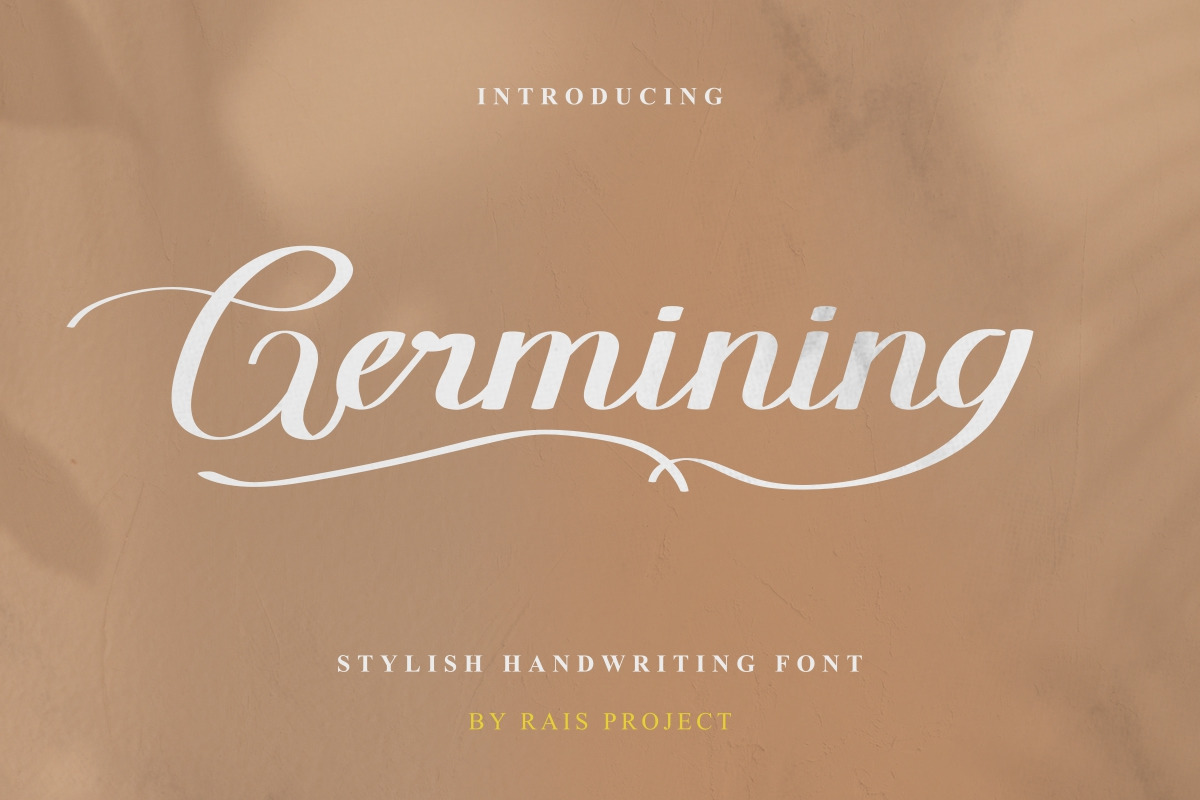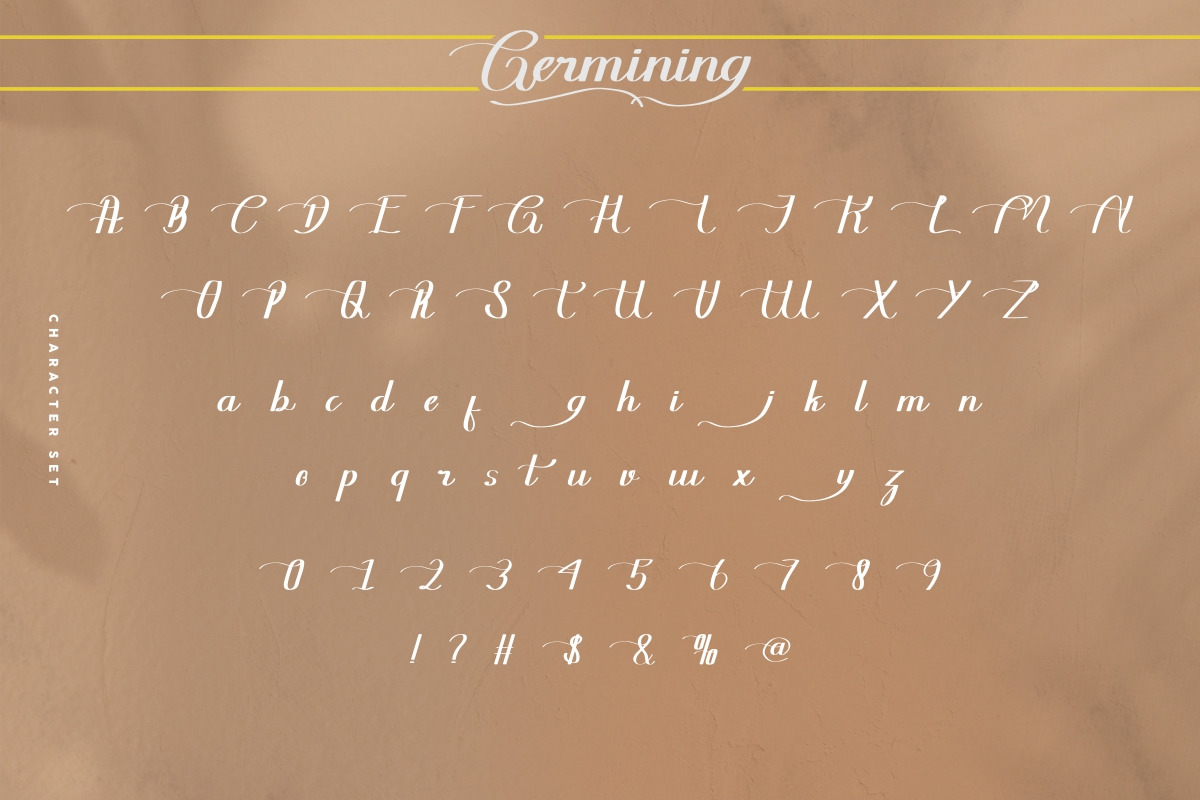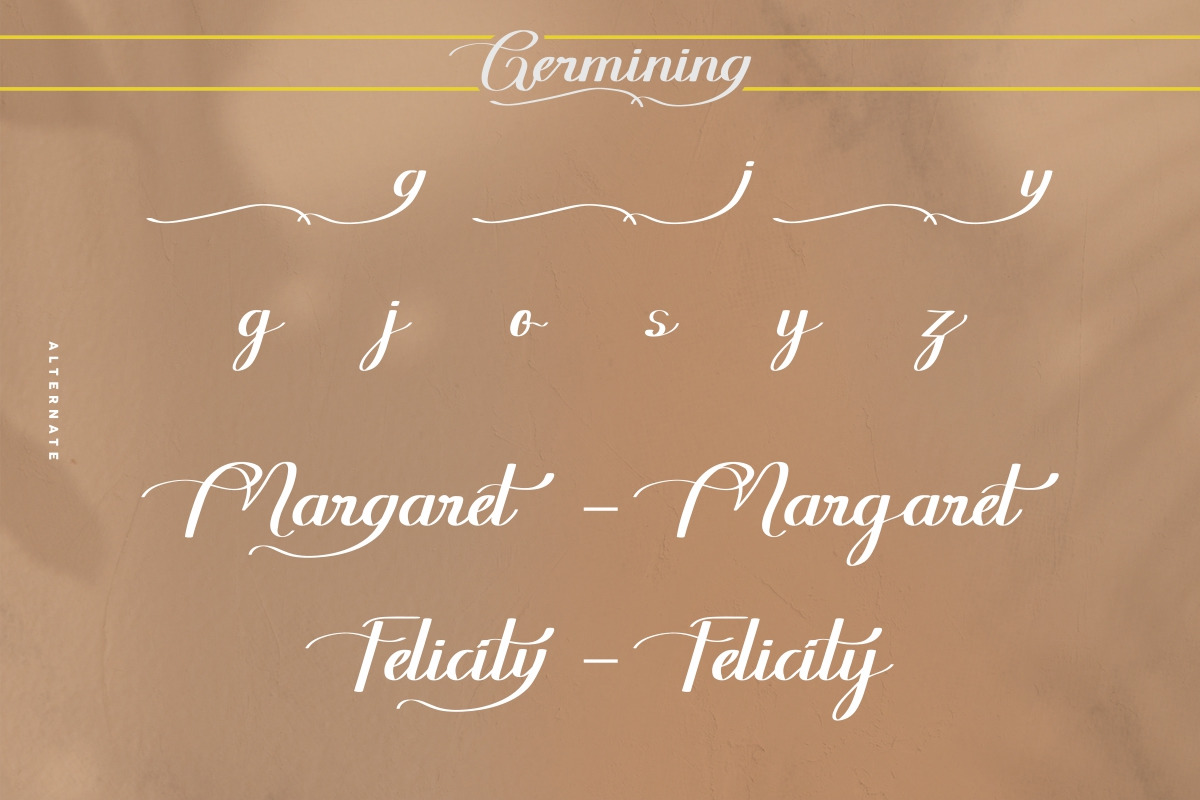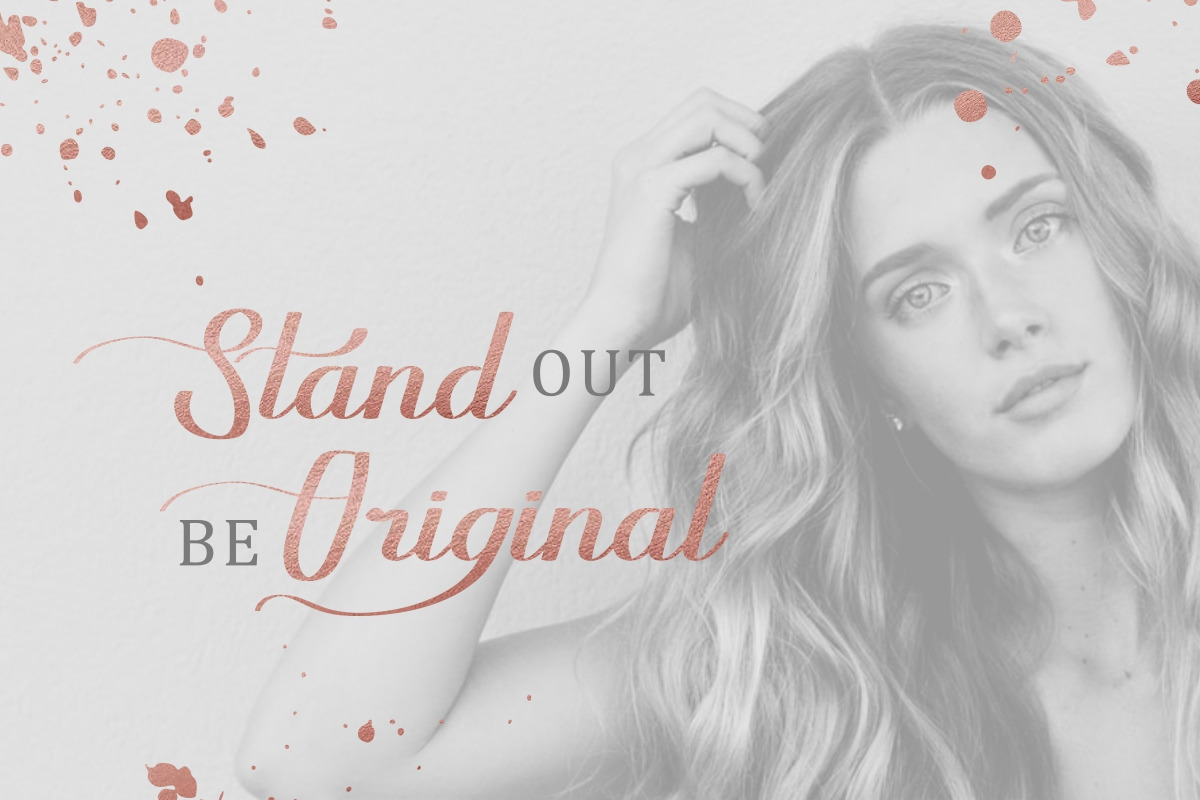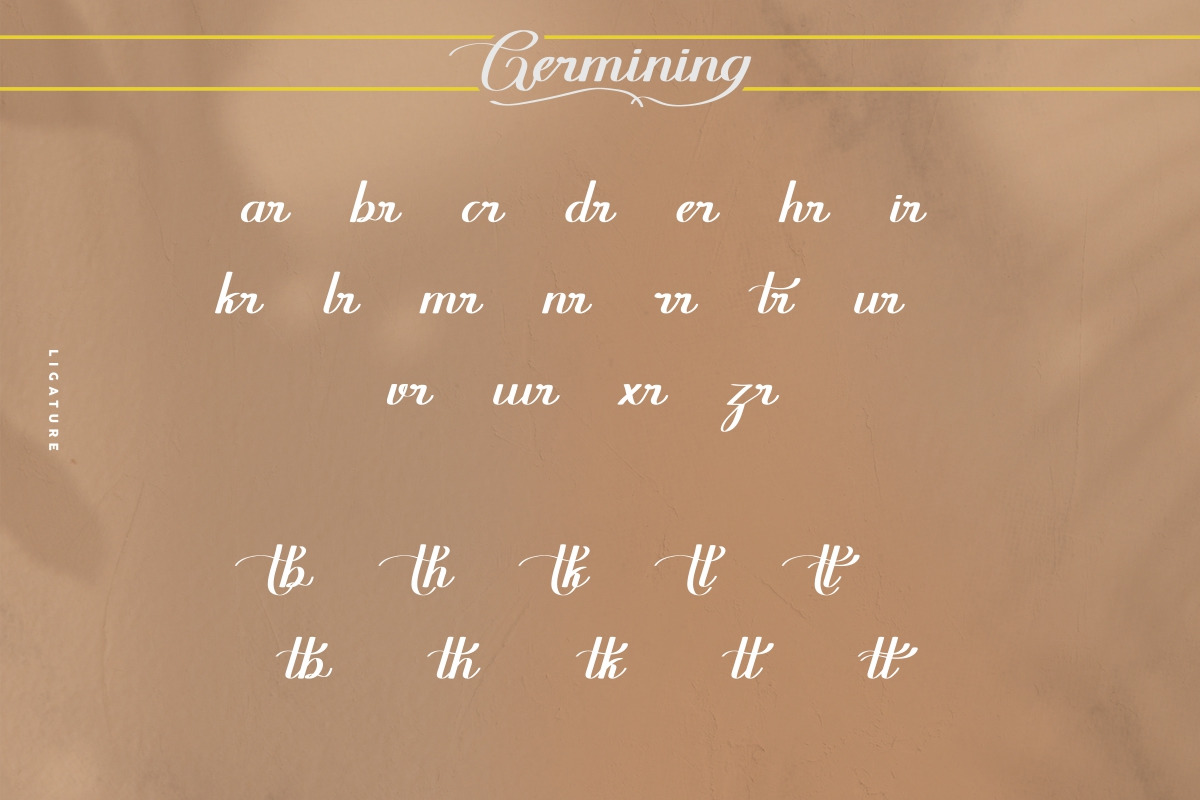
Germining Calligraphy Font
Germining is a beautiful calligraphy handwriting script font with sophisticated style. Germining it will be stunning for any your special projects including : games, promotion, events, branding, advertising, magazine, apps, signage, invitation, stationery, social media posts, product packaging, product designs, label, comic, watermark or and any projects that need calligraphy handwriting style.